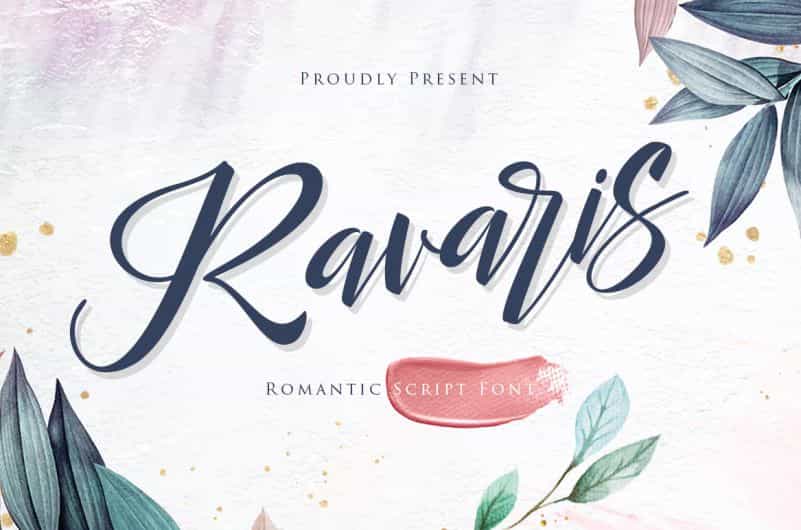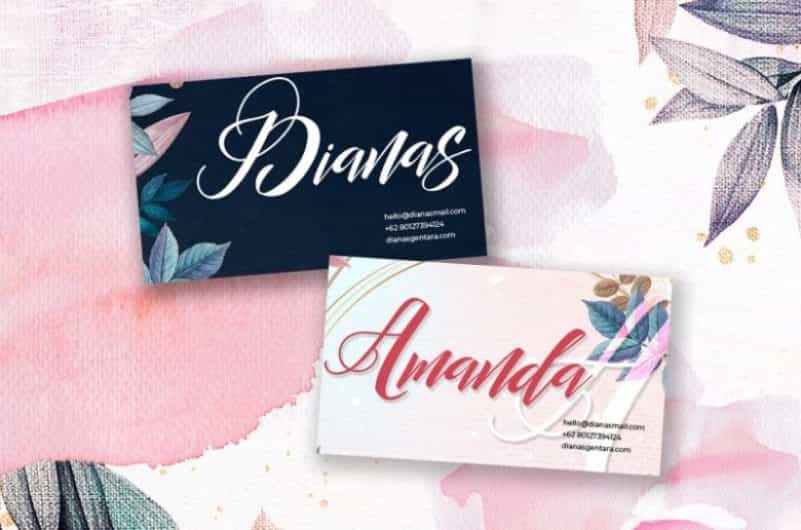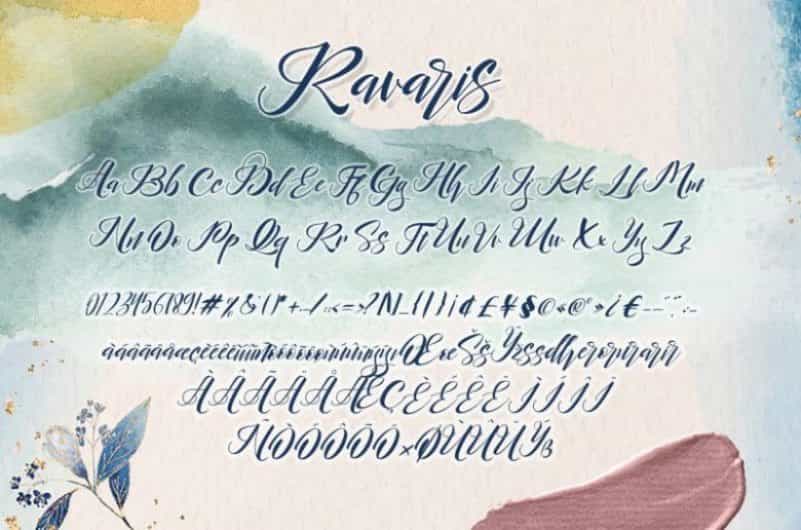
Be inspired by its contemporary swashes and the real charm it brings to any design project. Ravaris has been carefully created with the help of smooth curves to make a font that is completely unique and special. It has a complete set of lower & uppercase letters, a wide range of punctuation marks, numerals and multilingual support.